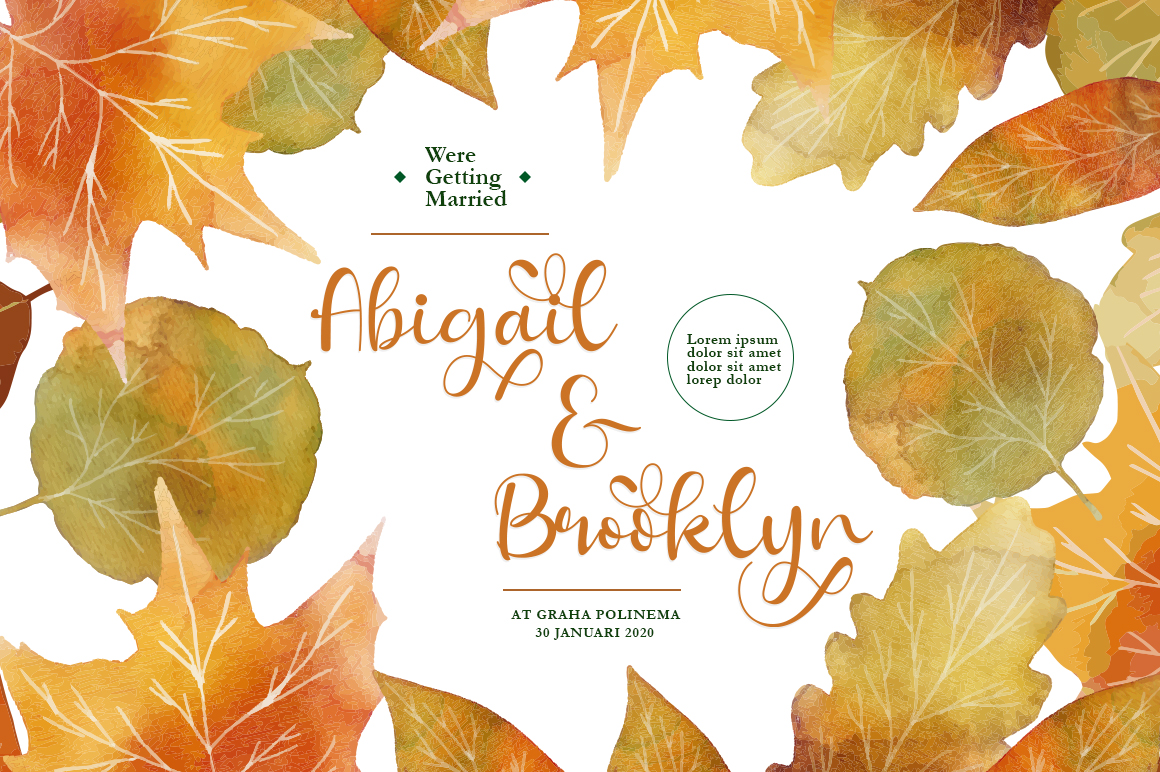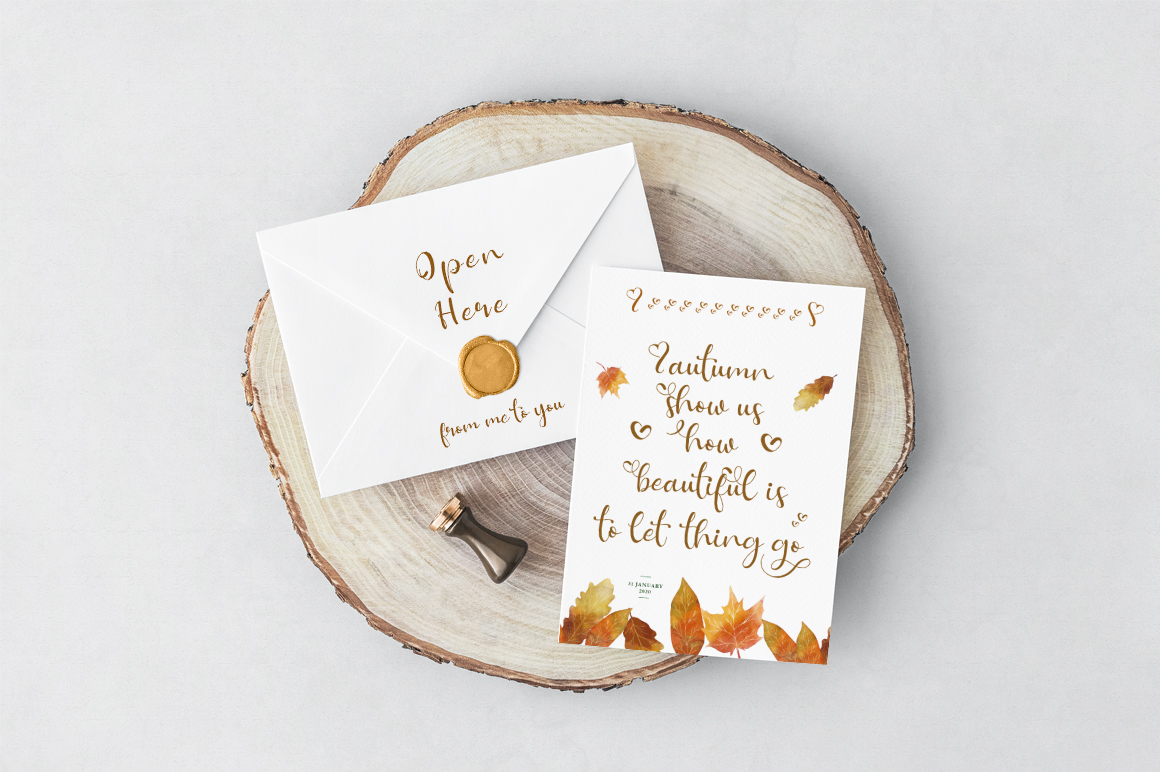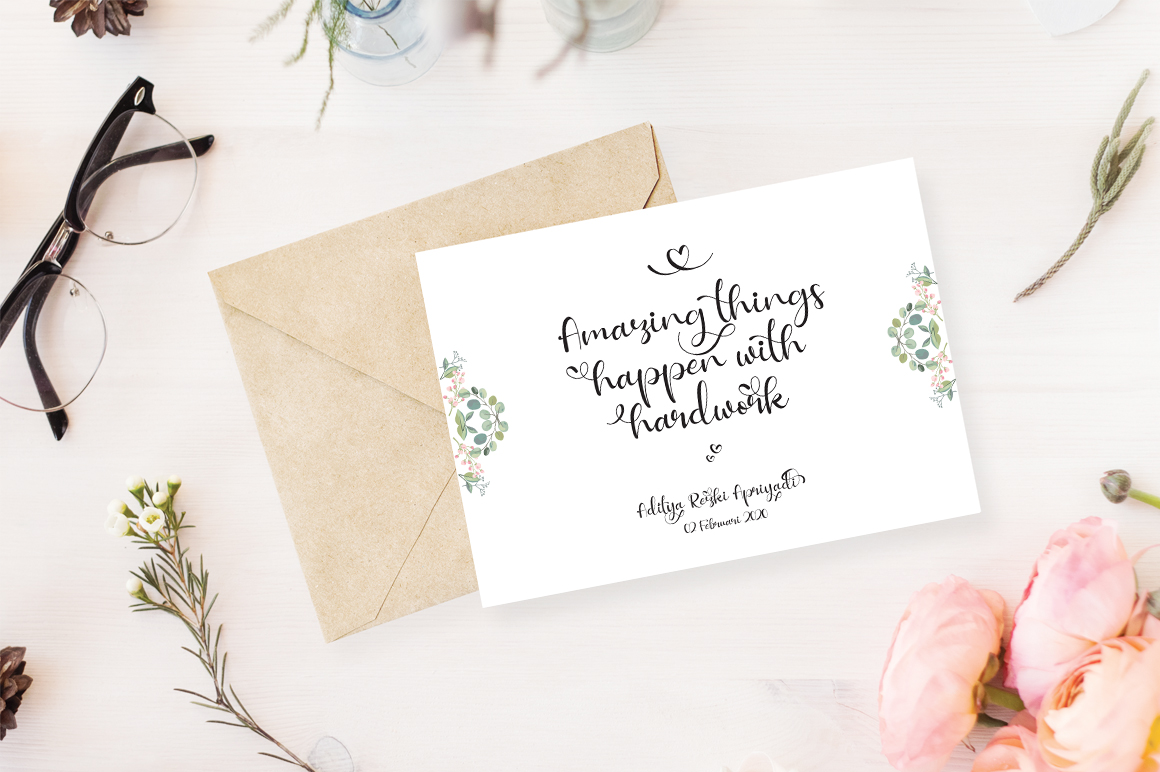
Syakira Free Font
Syakira Free Font is beautiful calligraphy with beautiful stylistic alternate, swashes, and decorate, suitable for your every project such as frame design, invitation, greeting cards, and many more. Make every project look perfect and beautiful. This free typeface was designed by a talented Aditya Rezki. If you like it don’t forget to check out the full version.